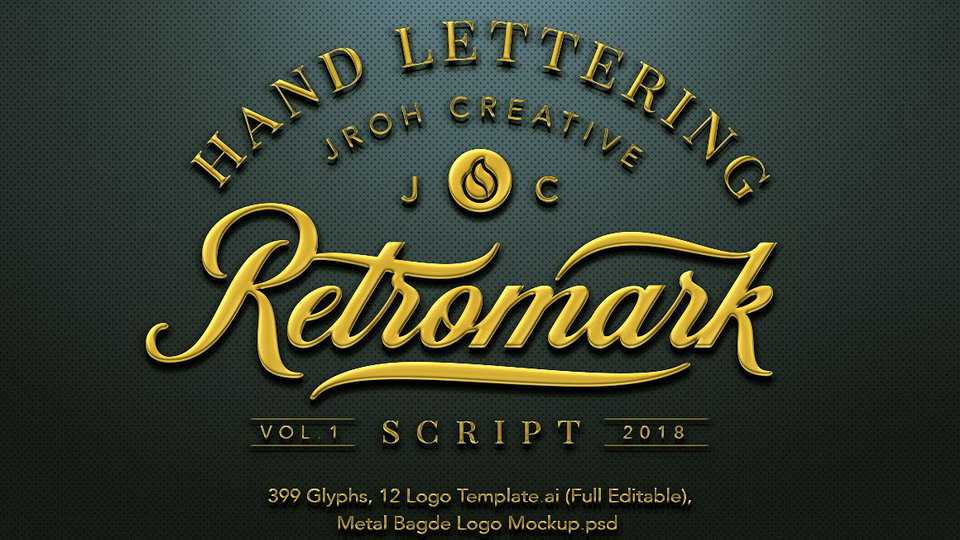
Download Retro Mark Script – an amazing hand lettered font with a retro, classic, strong, confidence, dynamic feel. It contains 399 glyphs with 209 alternative characters to improve your design.
Designer: Jroh Creative